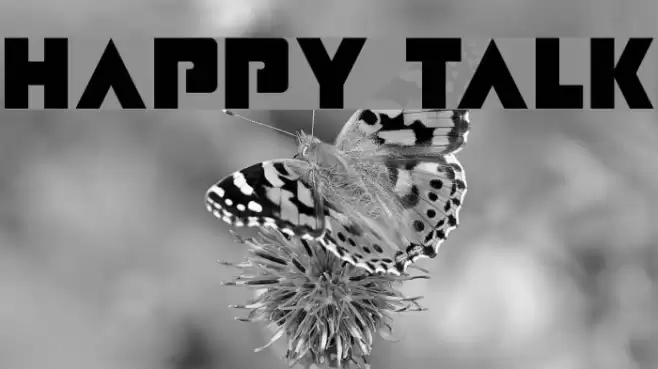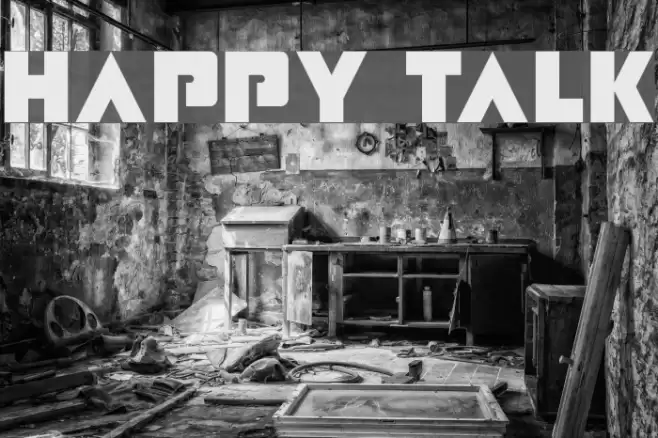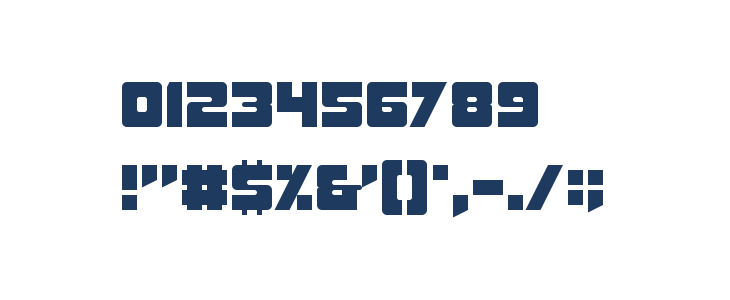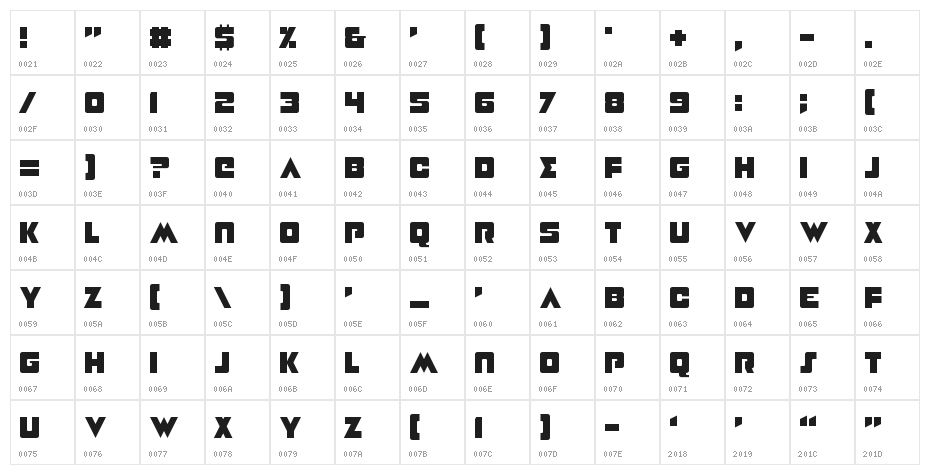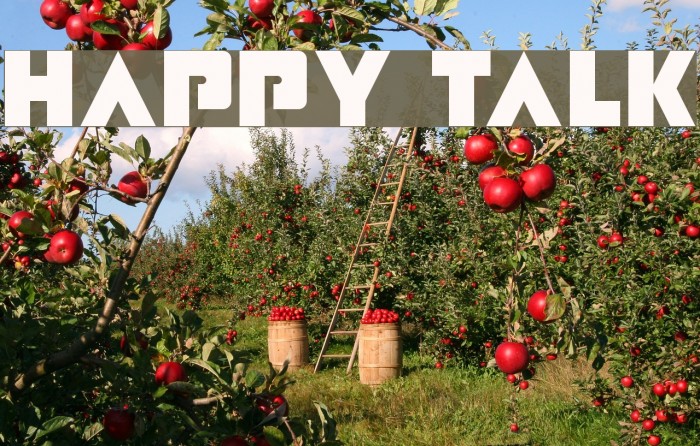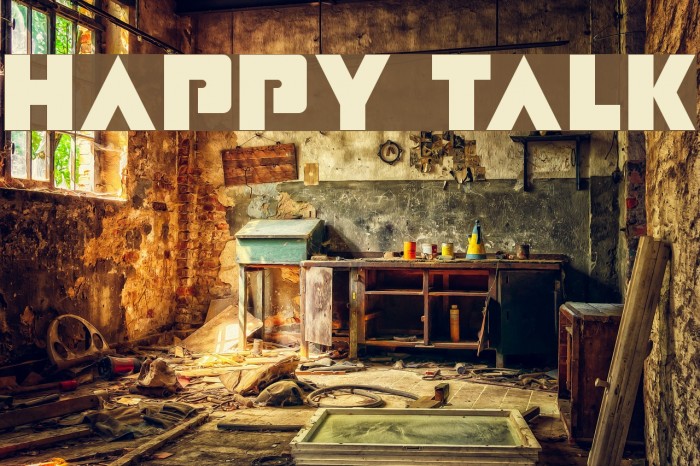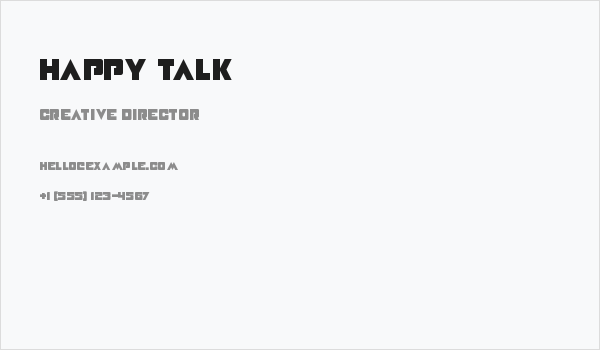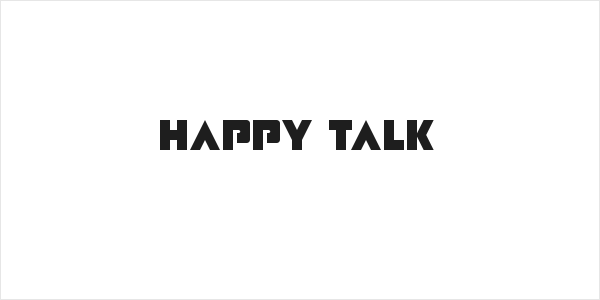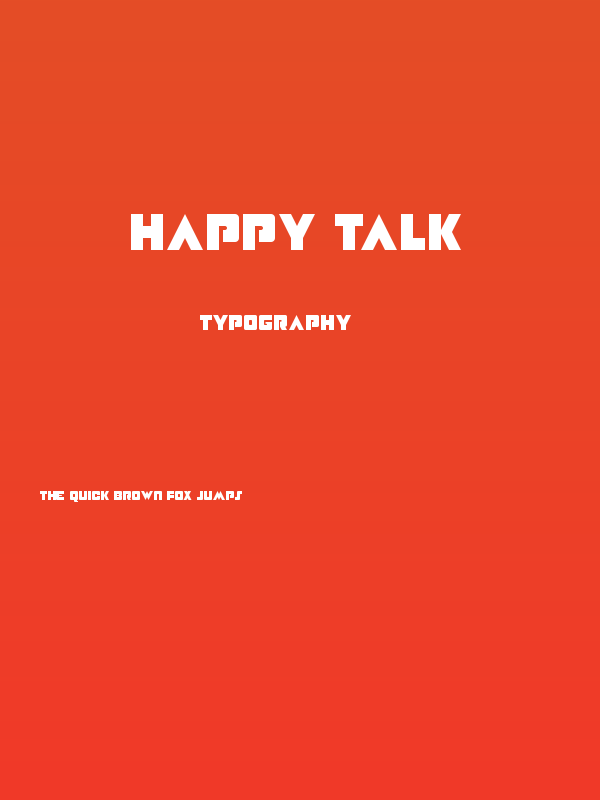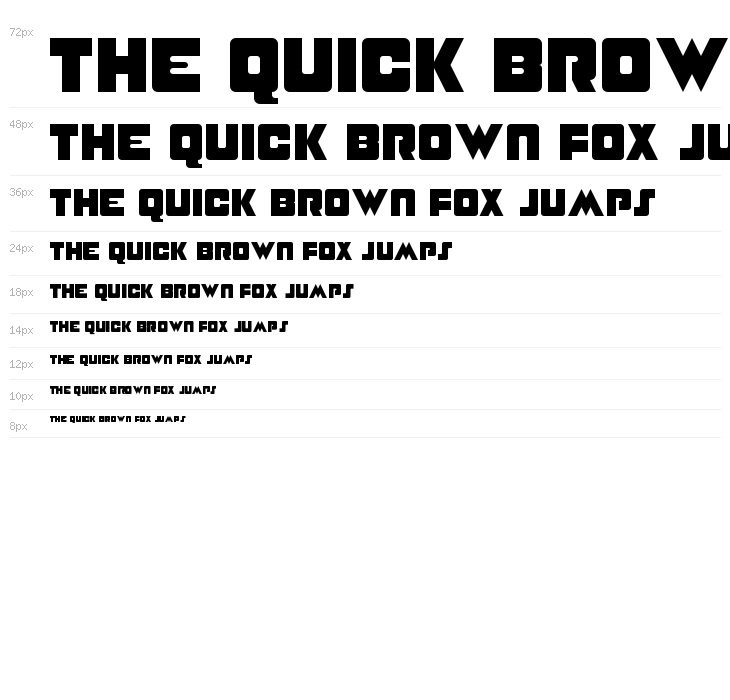
Happy Talk Font
Happy Talk Description
This font features a bold and geometric design with strong, angular lines and a modern aesthetic. The characters are constructed with a blocky, robust style that emphasizes sharp edges and a sense of solidity. The uppercase and lowercase letters maintain a consistent height, creating a uniform appearance. The numerals and special characters follow the same bold and structured design, ensuring cohesive visual harmony across all elements. This font's distinctive style makes it stand out, ideal for projects requiring a strong visual impact.
A bold, geometric font with strong, angular lines and a modern aesthetic from Uncategorized fonts.
- Proposed Projects: Ideal for branding, posters, headlines, and any design requiring a bold statement.